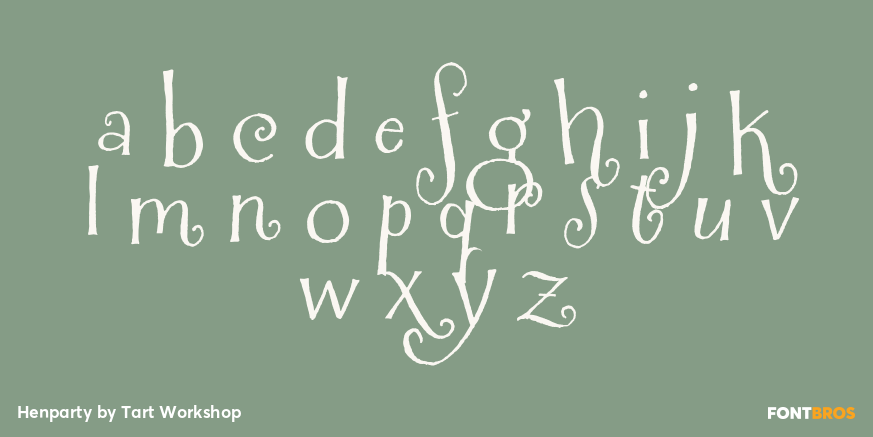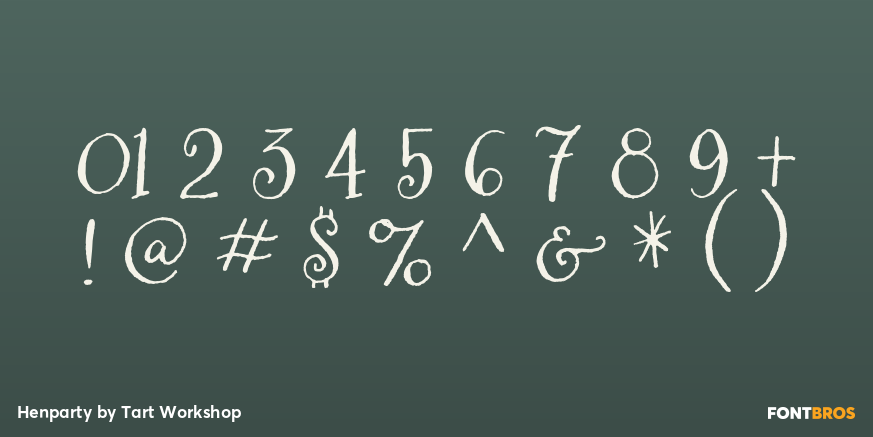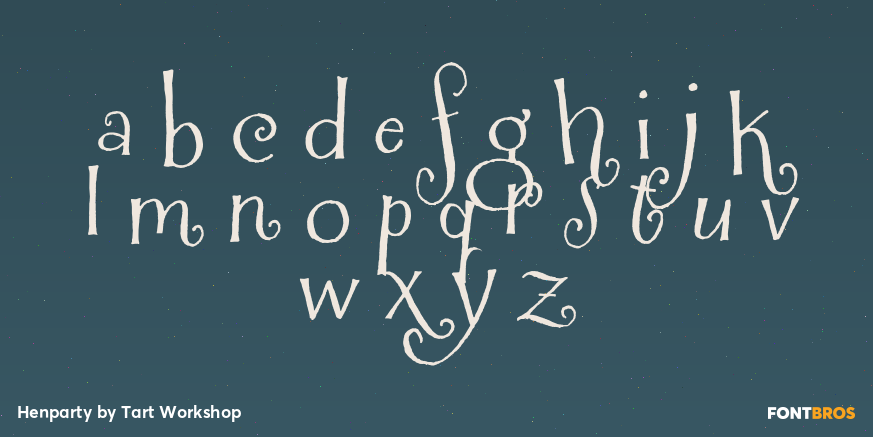
Henparty
Font Family by Tart Workshop
Originally created by the Tart Workshop's own Crystal Kluge as a logo for an online tea store for chicks, Henparty Serif and Henparty Sans are sure to delight! These fonts are perfect for baby announcements, giftware, any creative kid projects, children's books, scrapbooking, and more!